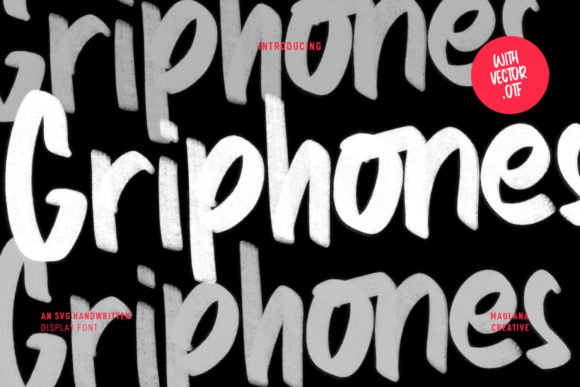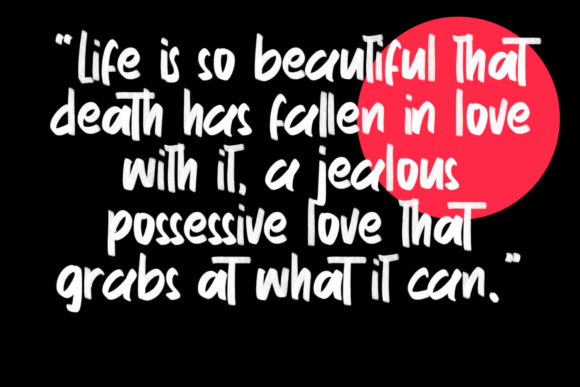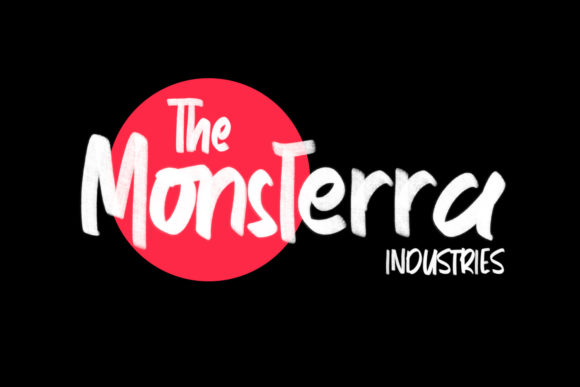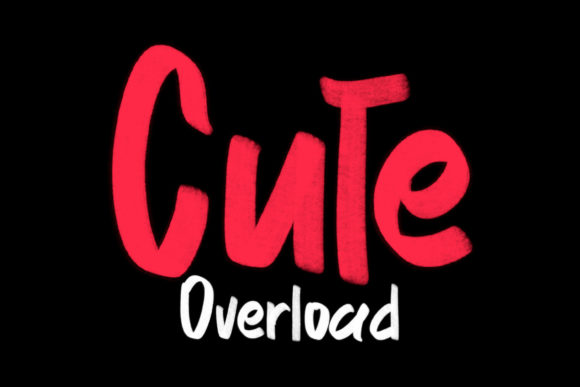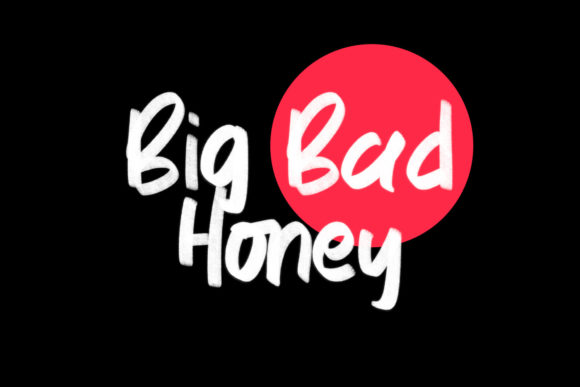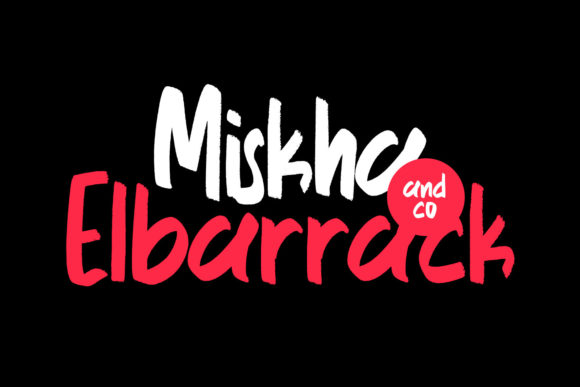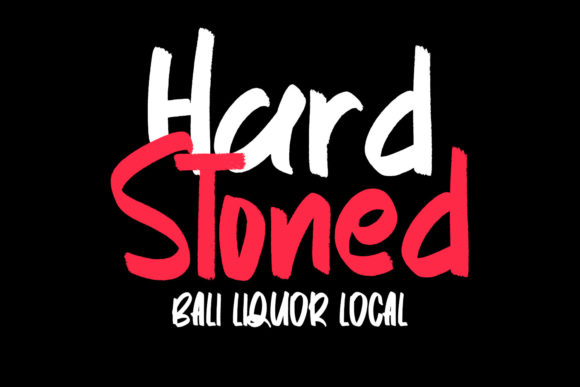
Unleashing Your Creativity with the Perfect Font
Have you ever sat down at your desk, staring at a blank page, waiting for inspiration to strike? The blank slate can be intimidating, but what if you had the perfect tool to help spark your creativity? For designers, finding the right font can be the key to unlocking a new level of artistic expression. That’s where Griphones Font comes in – a casual, handwritten font that’s sure to elevate any creation.
This versatile font is the perfect addition to any designer’s library, capable of bringing a touch of personality to a wide range of projects. Whether you’re working on a branding project, creating social media graphics, or crafting a marketing campaign, Griphones Font has the potential to take your work to the next level.
Griphones Font Key Features
- Unique Characteristics: This font features a unique blend of modern and vintage elements, with intricate details and subtle texture, making it perfect for creating visually striking and attention-grabbing designs.
- Kerning and Ligatures: The font includes advanced kerning and ligature pairs, ensuring smooth and professional typography, even at small font sizes and complex text arrangements.
Griphones Font Review
I recently had the chance to work with the Griphones Font, and I must say it’s a unique addition to any design project. ✨ One thing that works well with this font is its versatility – it can be used for both modern and classic designs. The font’s bold lines and distinctive shape make it perfect for headlines, while its softer edges can be used for body text.
Another advantage of Griphones Font is its wide range of characters and languages supported. ✨ This makes it an excellent choice for international projects or those requiring multiple languages.
While Griphones Font is a solid choice, there are some limitations to consider. ⚠️ The font’s irregular shape and bold lines can make it challenging to read, especially in smaller sizes. Additionally, some users may find the font’s unique style too quirky or distracting.
- Limited availability in different weights
- May not be suitable for all design styles or projects
In conclusion, Griphones Font is a great addition to any designer’s toolkit. While it may have some limitations, its unique style and versatility make it an excellent choice for a wide range of projects. With some careful consideration of the font’s limitations, designers can create stunning designs that stand out from the crowd.
Tips for Getting the Most Out of Griphones Font
To get the most out of Griphones Font, try the following:
- Use it for headings and titles to add a touch of elegance.
- Combine it with other fonts for a unique and creative look.
Griphones Font is commonly used for:
- Designing business cards and letterheads.
- Creating social media graphics and advertisements.
- Developing branding materials and marketing collateral.
Alternatives to Griphones Font for Designers
Pacifico is a beautiful, elegant script font perfect for creating a warm and inviting atmosphere. It’s ideal for wedding invitations, greeting cards, and other personal projects where a touch of sophistication is required.
Compared to Griphones Font, Pacifico has a more refined and delicate feel, making it suitable for projects that require a softer, more feminine touch.
Great Vibes is a modern script font that exudes a sense of freedom and adventure. It’s perfect for creating eye-catching headings, titles, and other design elements that require a bold and energetic feel.
Unlike Griphones Font, Great Vibes has a more dynamic and playful personality, making it ideal for projects that require a youthful and energetic vibe.
Q: What is the recommended font size and line height for optimal readability with the Griphones Font?
For optimal readability, we recommend using a font size between 12-14 points and a line height of at least 1.5 times the font size. This will ensure that the text remains clear and easy to read, even at smaller font sizes.